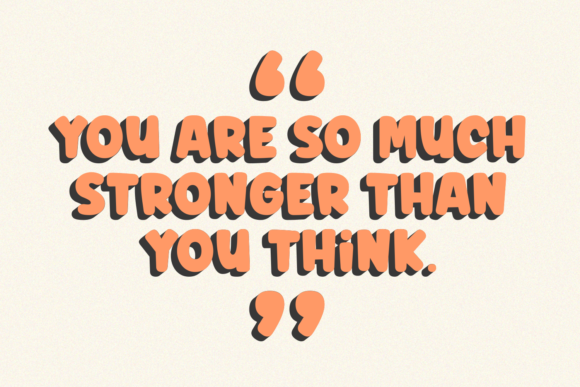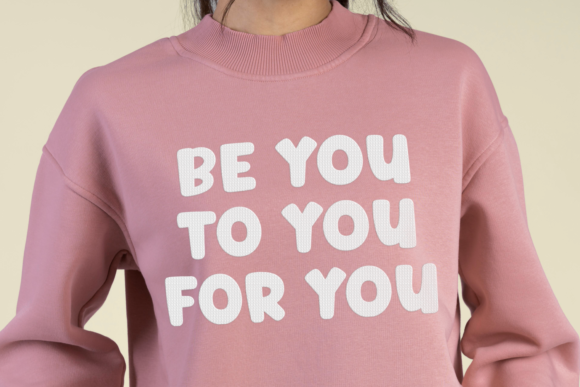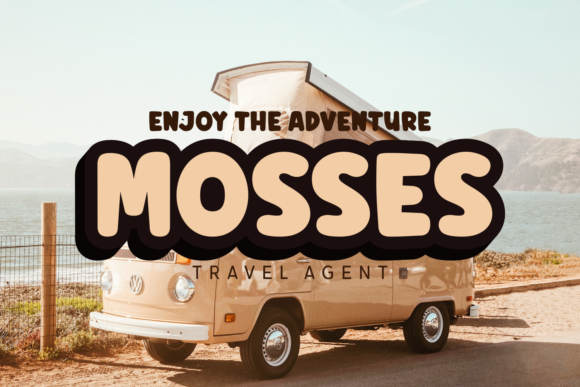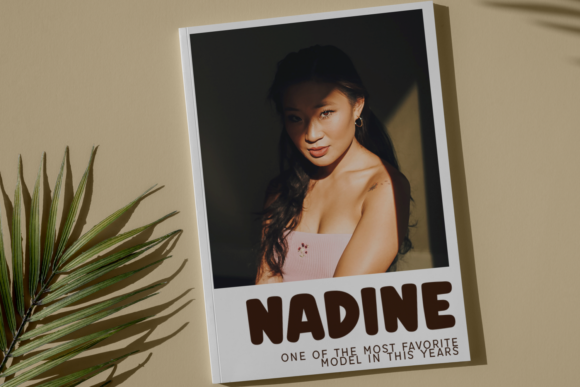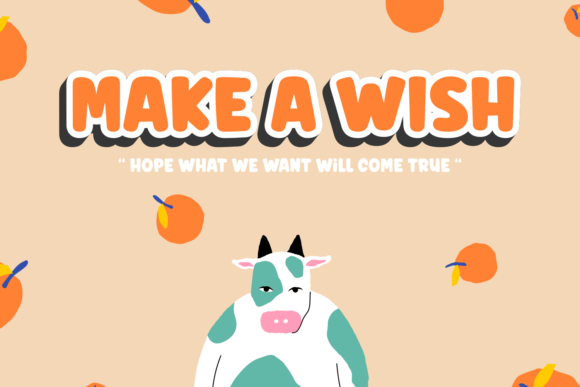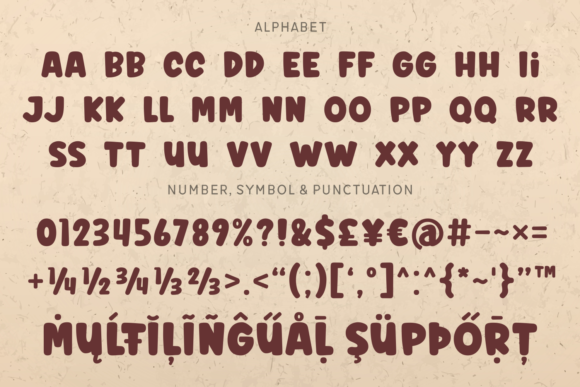
Introduction to Share Hope Font
Imagine you’re brainstorming ideas for a birthday card, and you want to add a personal touch that will make the recipient’s day. You start scrolling through your design resources, and your eyes land on the perfect font – Share Hope Font. This chubby and playful display typeface instantly captures the essence of your creative project and elevates it to the next level.
As designers, we’re always on the lookout for high-quality fonts that can bring our ideas to life. Share Hope Font is a valuable addition to any design arsenal, offering a transparent background that makes it perfect for a wide range of applications, from covers and posters to t-shirts and logos. And the best part? It’s available for free download, making it an accessible design resource for creatives of all levels.
Key Features of Share Hope Font
- High-quality design: The Share Hope Font is a beautifully crafted, high-quality design resource perfect for any creative project.
- Transparent background: This font features a transparent background, allowing for seamless integration with any design element.
- Unique characteristics: The Share Hope Font features a unique, hand-drawn style, making it perfect for designers looking for a distinctive look.
Honest Review: Share Hope Font
I recently stumbled upon the Share Hope Font, and I must say it’s a great addition to any designer’s toolkit. As a creative professional, I’m always on the lookout for high-quality design resources that can elevate my projects.
One of the standout features of the Share Hope Font is its transparent background, making it a versatile choice for various design applications. I’ve used it for logos, icons, and even as a decorative element in digital assets.
Here are some of the things that work well with the Share Hope Font:
- High-quality design with a unique touch
- Can be easily customized to fit any design style
- Works well with various design software
- May require some tweaking to achieve the desired look
Overall, I’m impressed with the Share Hope Font and would recommend it to designers looking for a reliable, high-quality design resource. It’s a great addition to any design library and can help take your creative projects to the next level. ⚠️ With a few minor adjustments, it can be a game-changer for your design workflow. ✨
Tips for Getting the Most Out of Share Hope Font
For the best results, use the Share Hope Font in conjunction with other high-quality design elements. Experiment with different font sizes, colors, and alignments to find the perfect combination for your design. You can also use the font in combination with other design resources to create a unique and eye-catching design.
The Share Hope Font is perfect for a variety of creative projects, including presentations, documents, and social media graphics. Its high-quality design and transparent background make it an excellent choice for any design project.